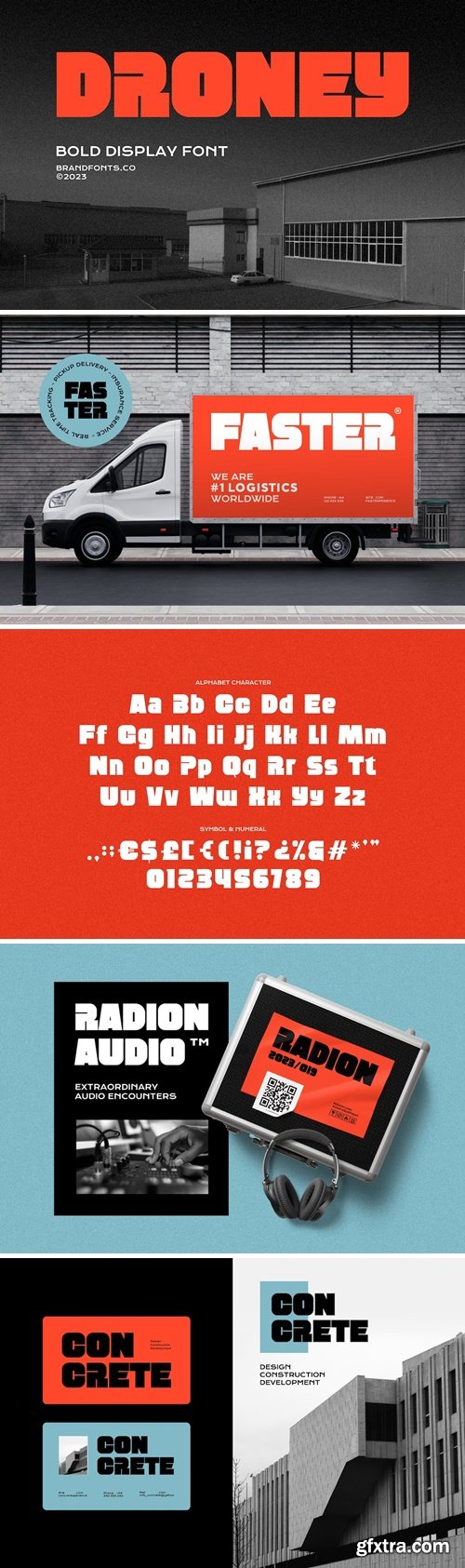
无人机 – 一款大胆、现代且未来主义的展示字体
Elevate your design projects with the commanding presence of Droney, a bold display font meticulously crafted by the visionary typographers at BrandFonts.co. With its bold strokes and modern aesthetic, Droney seamlessly blends strength and innovation to create a typographic masterpiece that stands out in any context. Crafted with an acute attention to detail, Droney's strong letterforms exude confidence and boldness, making it an ideal choice for projects that demand a distinctive impact. This font's robust and assertive design allows it to effortlessly bridge the gap between traditional and contemporary styles, making it suitable for a wide range of design applications. Unveiling a fusion of strength and futurism, Droney showcases a cutting-edge design that propels your projects into the digital age. Its modern aesthetic reflects a forward-thinking approach, making it a go-to choice for brands, creatives, and designers who wish to communicate a sense of innovation and progression. The package includes both OTF (OpenType) and TTF (TrueType) files, ensuring seamless compatibility with various design software and platforms. This versatile feature guarantees a smooth incorporation of Droney into your projects, be it for digital presentations, print materials, or any creative endeavor that requires a bold and futuristic touch.